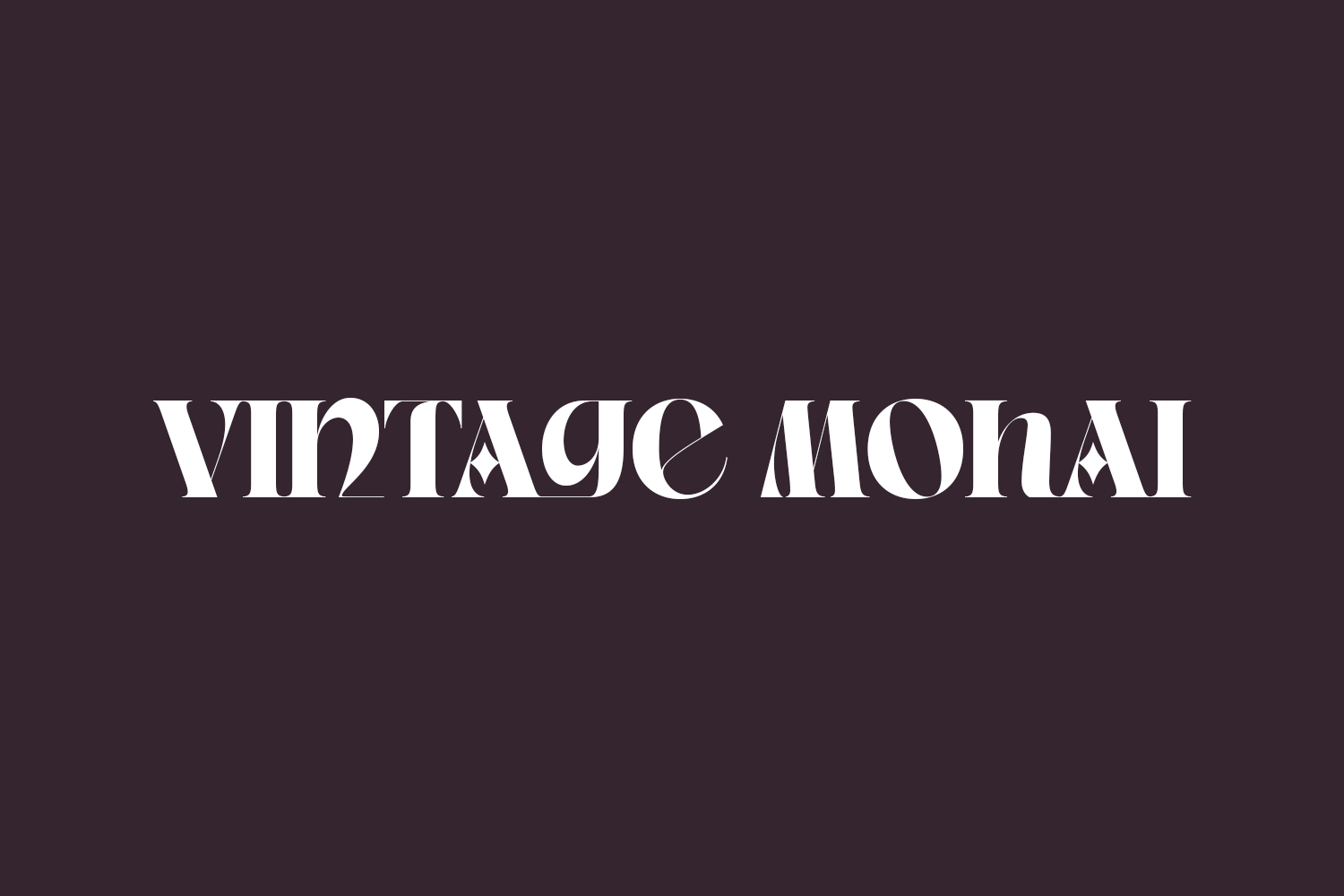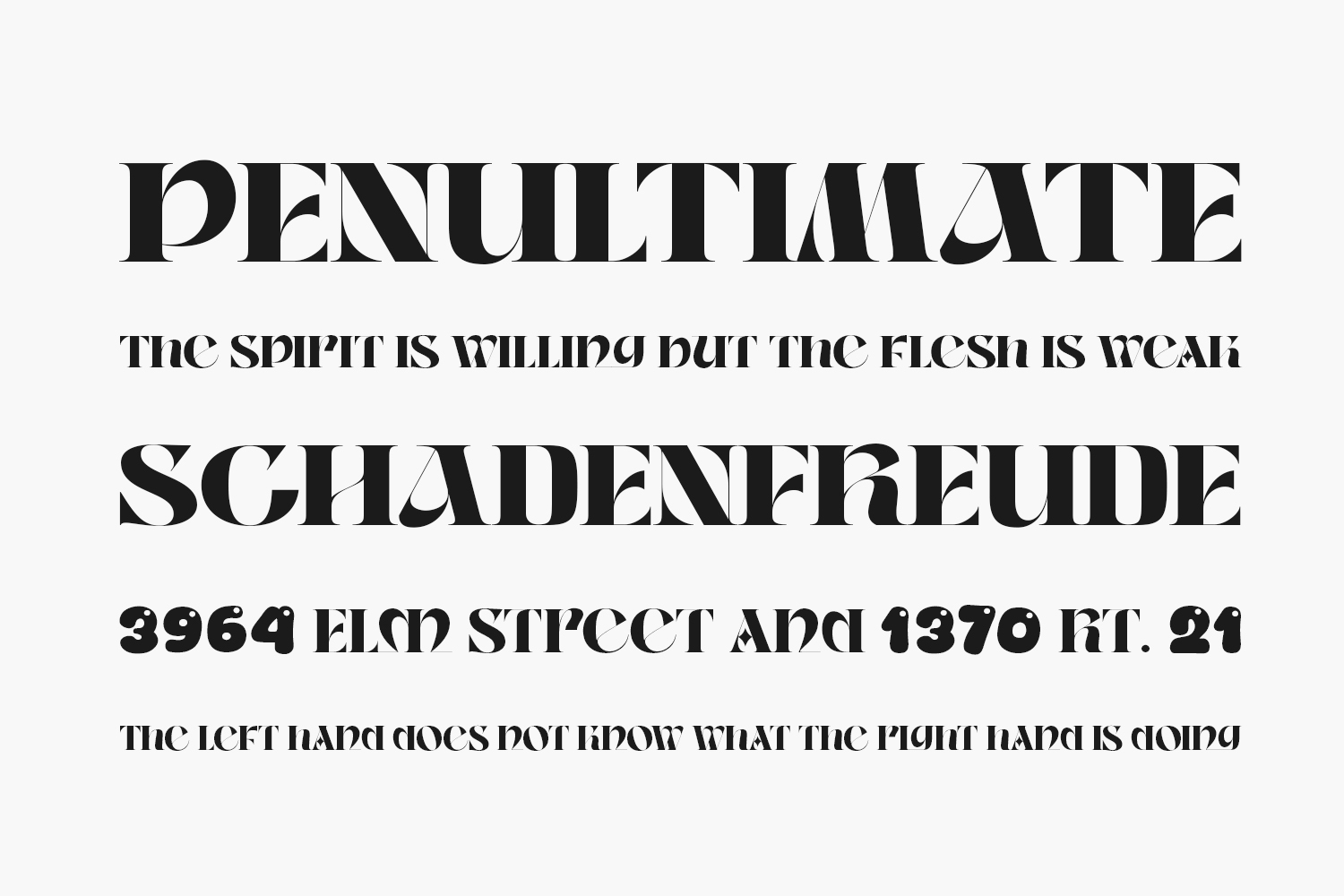
Vintage Mohai Free Font is a sleek, futuristic, and contemporary display font, perfect for injecting a touch of vintage elegance into your projects. Whether it’s party invitations, branding materials, or any design in need of a refined aesthetic, Vintage Mohai effortlessly enhances the overall appeal. Elevate your creativity with this exquisite font today. Download the font for free if you need it for personal use or purchase the full version for commercial use.